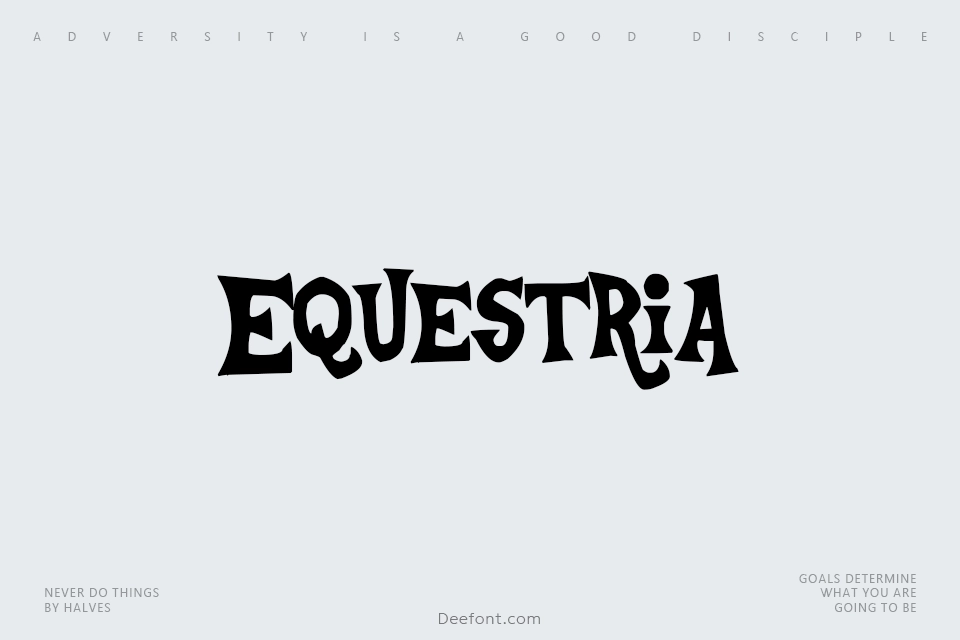
Equestria Font
Equestria is an irregular and irreverent typeface heavily inspired by Hasbro’s My Little Pony character and package logos. This fancy, cartoon-style font features playful curves and bold lines, delivering a whimsical aesthetic perfect for creative projects. It includes a full alphabet, extended characters, punctuation, and Euro support across regular, bold, italic, and bold-italic styles, making it versatile for various design applications.